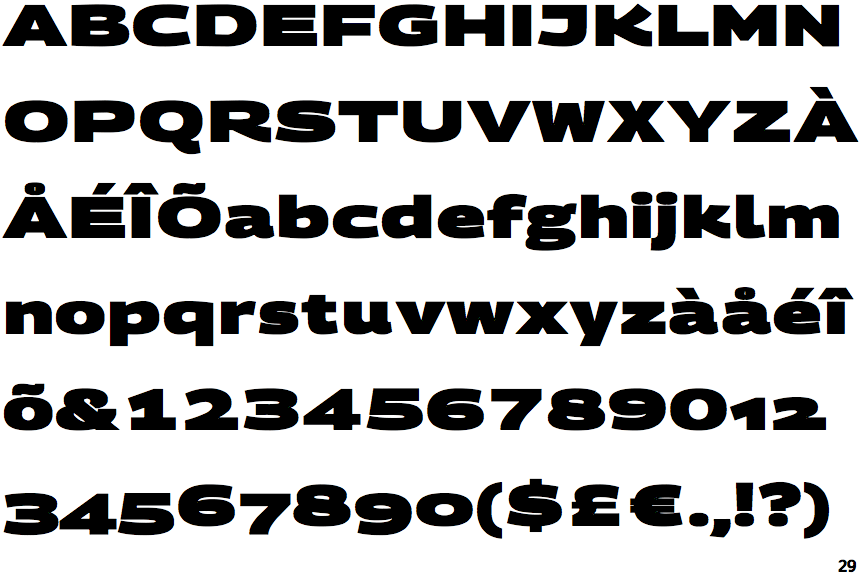
Panorama Extra Extended Ultra Black
One of the Widest sans-serif 1 fonts for tight vertical spaces.
Designers: Jean-Baptiste Levée, Yohanna My Nguyen, Xavier Majewski and Benjamin Vesco Year: 2014 Publisher: Production Type An OpenType font that includes both lining and oldstyle figures. |